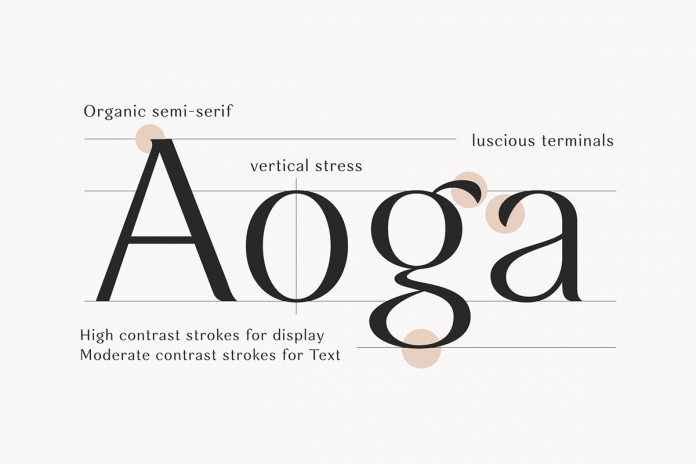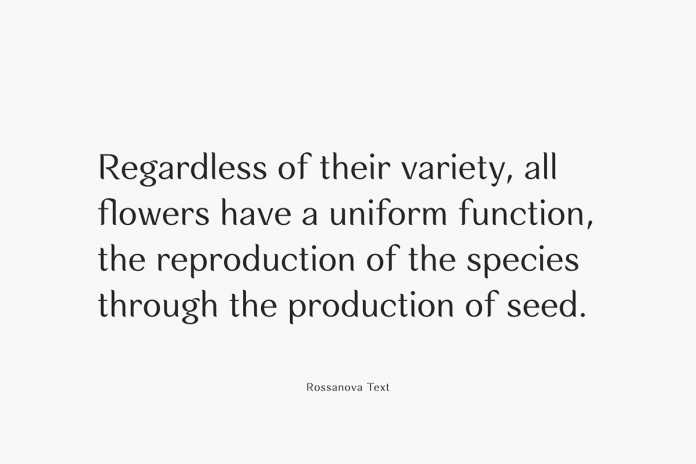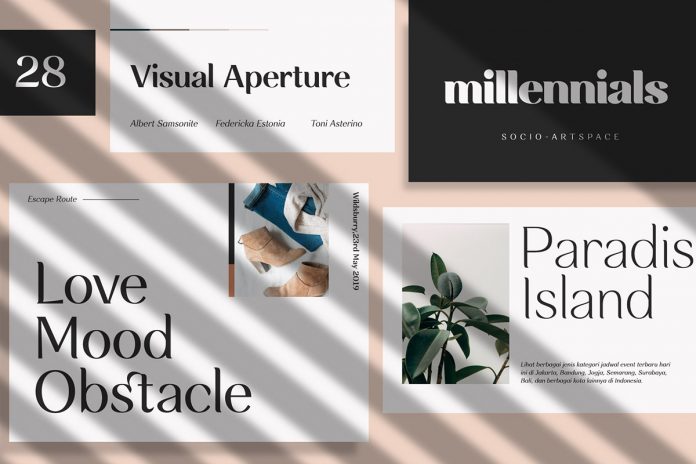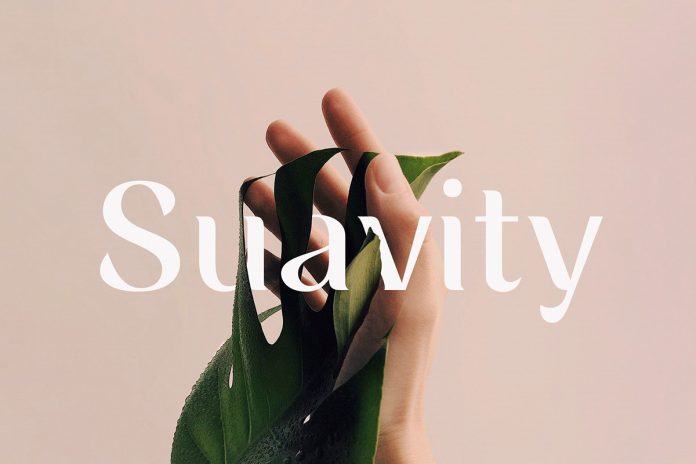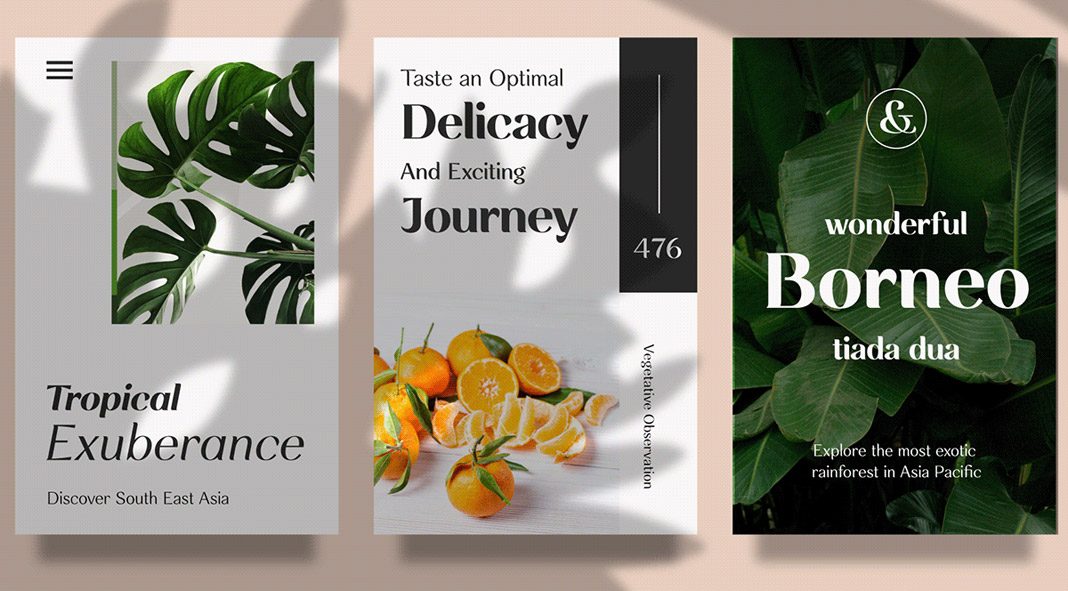
Rossanova, a classy semi-serif font family designed and published by Eko Bimantara.
Consisting of 36 fonts that are organized in 2 optical sizes including 8 weights ranging from thin to black plus matching Italics for each weight, Rossanova is a new semi-serif font family. The typeface offers a classy touch, which works great in a variety of typographic applications such as editorial design, branding projects, signage, product packaging, just to name a few. The normal optical style is characterized by high contrasting strokes while the text styles have been designed with moderate contrast to ensure perfect readability. Rossanova comes with more than 470 glyphs and numerous OpenType features including stylistic alternates, ligatures, discretionary ligatures, old-style numbers, variations of figures, etc. Just click on one of the following links to learn more or have a look at the images below.